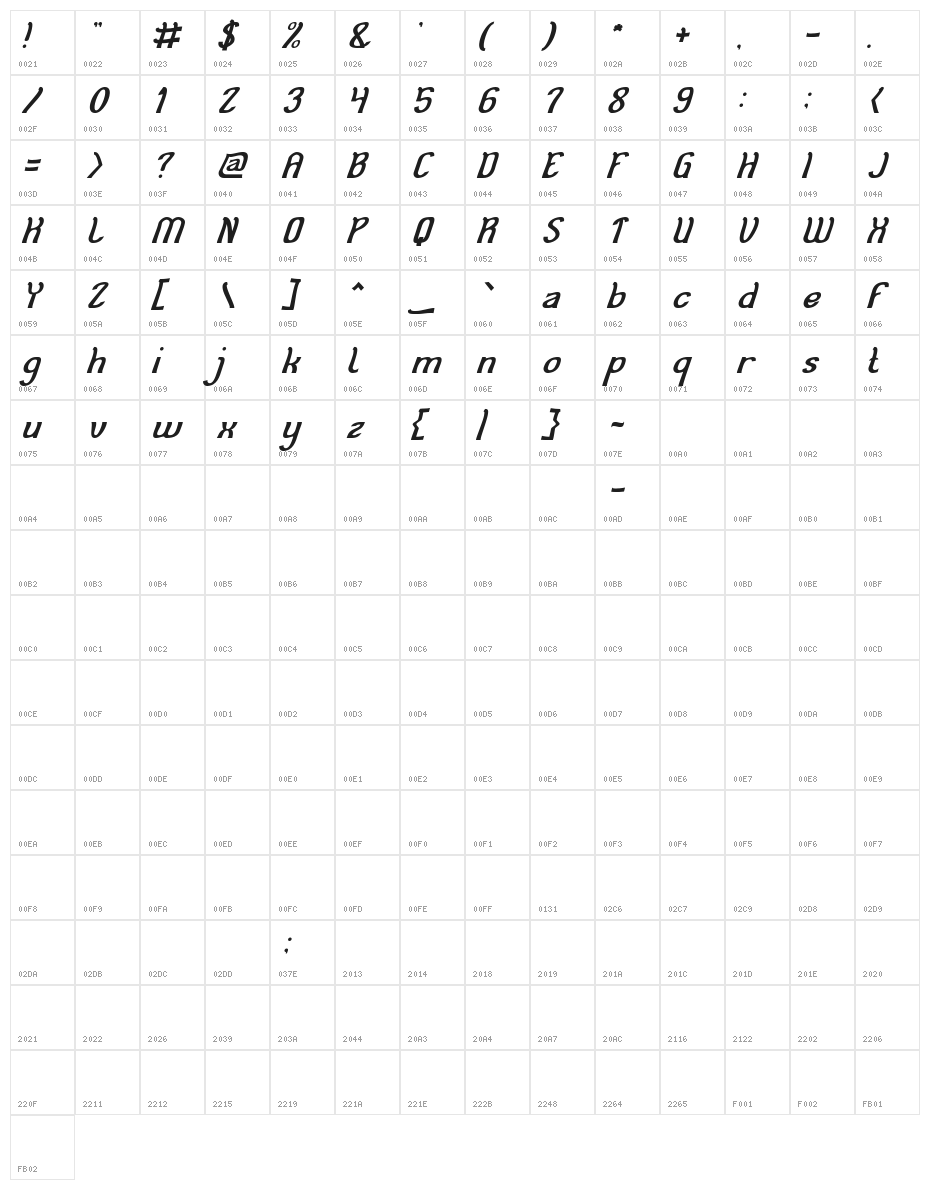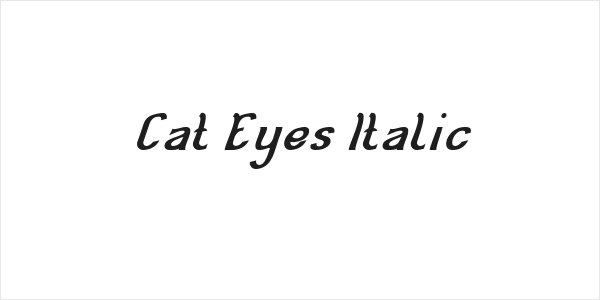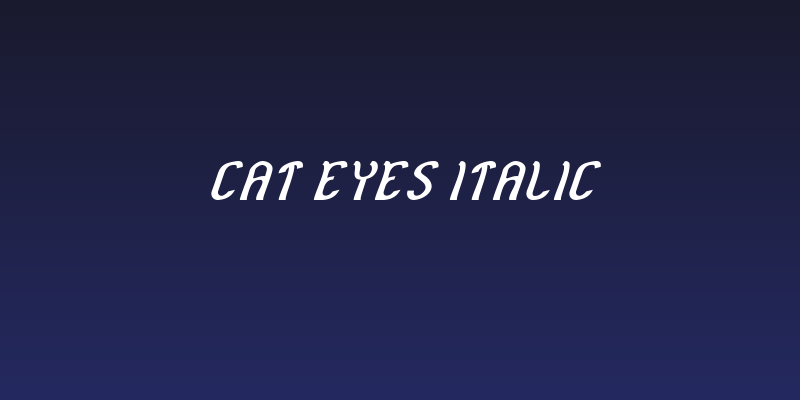
Cat Eyes Italic Font
Cat Eyes Italic Description
This font features a dynamic and flowing italic style with a playful yet sophisticated appearance. The characters are slightly slanted, giving a sense of movement and elegance. The strokes are smooth and rounded, with a consistent thickness that adds to its readability. The uppercase letters are bold and prominent, while the lowercase letters maintain a harmonious balance. The numerals are clear and distinct, matching the overall style of the alphabet. Special characters are well-integrated, maintaining the font's cohesive look. This font is versatile, suitable for both formal and informal contexts, providing a unique flair to any design.